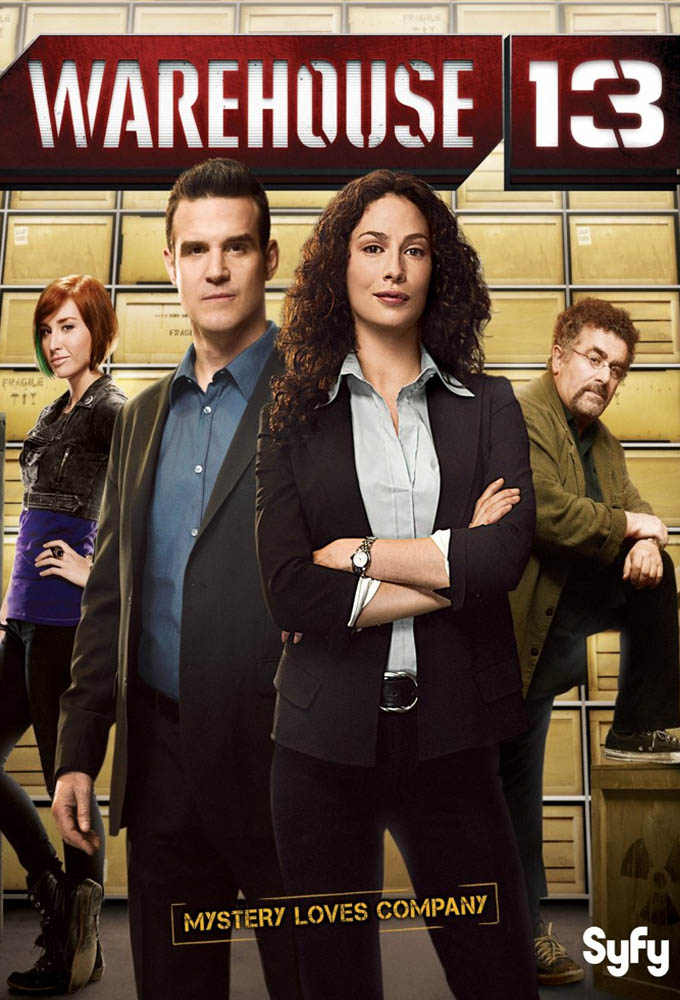
Warehouse 13 Font
AdventureWarehouse 13 is a science fiction television series that follows two Secret Service agents as they track down and retrieve supernatural artifacts and store them in a mysterious warehouse.
The TV show's logo font resembles W13 Normal, a font created by a fan modeled after the original logo's lettering. This font is limited to capital letters and numerals and is available for free download in the Fonts Used Section.